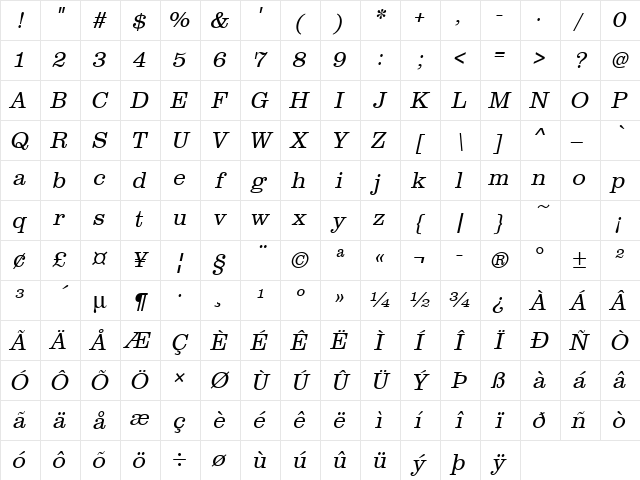
URWClarendonTLigNar Oblique
URWClarendonTLigNar Oblique Family
URWClarendonTLigNar Oblique
Design Context for URWClarendonTLigNar
URWClarendonTLigNar features prominent, blocky serifs that give it a confident, grounded presence - equally at home in editorial settings and bold branding work. The slanted form adds forward momentum and visual energy.
Pro Tip: Use URWClarendonTLigNar for headlines and subheadings where its slab serifs can make an impression. It also holds up well in mid-size body copy thanks to its sturdy construction.